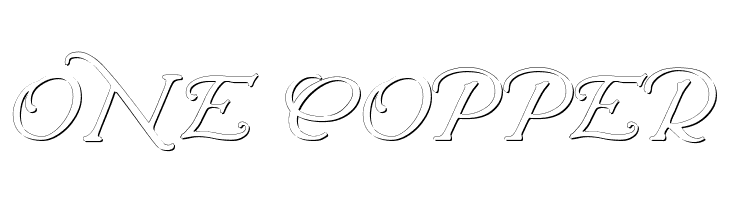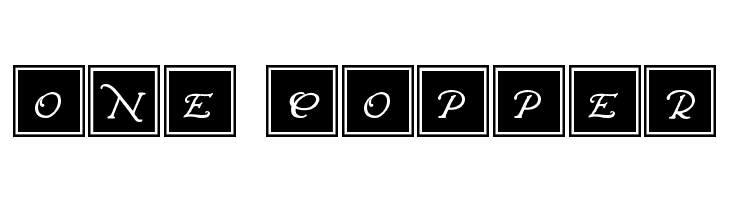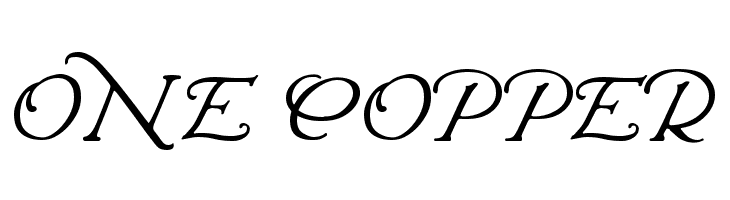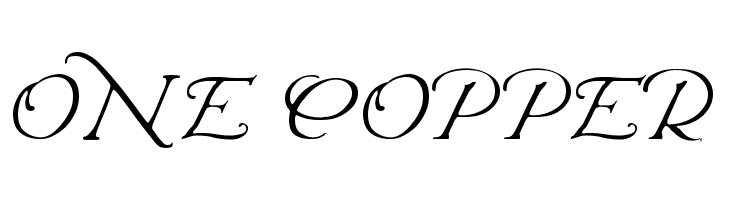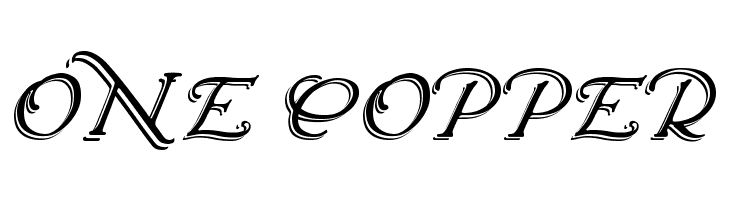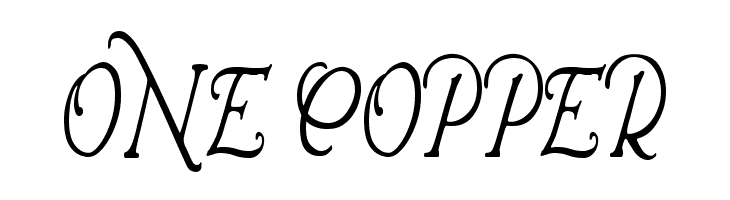
An elegant script font with ornate, flowing letterforms and intricate flourishes.
A decorative script font with uppercase letters in square blocks, offering a classic and elegant style.
An elegant, bold script font with ornate, flowing letterforms.
An elegant, condensed script font with ornate uppercase letters.
An elegant, embossed font with decorative swirls and a classic calligraphy style.
An elegant script font with ornate swashes and high contrast, ideal for formal designs.
Elegant, decorative font with shadowed, three-dimensional effect.
An elegant, shadowed decorative font with intricate curves and a classic appeal.